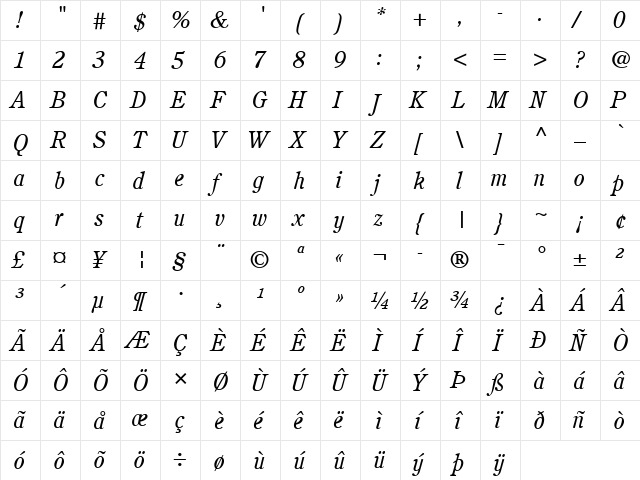
Cushing LT Book Italic
Design Context for Cushing LT Book Typeface
Cushing LT Book is a composed and adaptable typeface that performs quietly and consistently across a wide range of design contexts. The slanted form adds forward momentum and visual energy. Its slender proportions lend an understated elegance to any composition.
Pro Tip: Use Cushing LT Book for emphasis, pull quotes, and subheadings where its slanted energy can add rhythm to the layout.